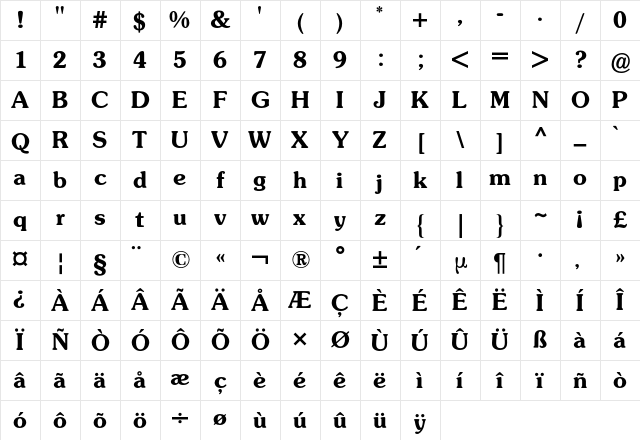
Complete Souvenir BQ Regular glyph index. Displaying only characters natively supported by Souvenir BQ Regular font.
Souvenir BQ is a composed and adaptable typeface that performs quietly and consistently across a wide range of design contexts.